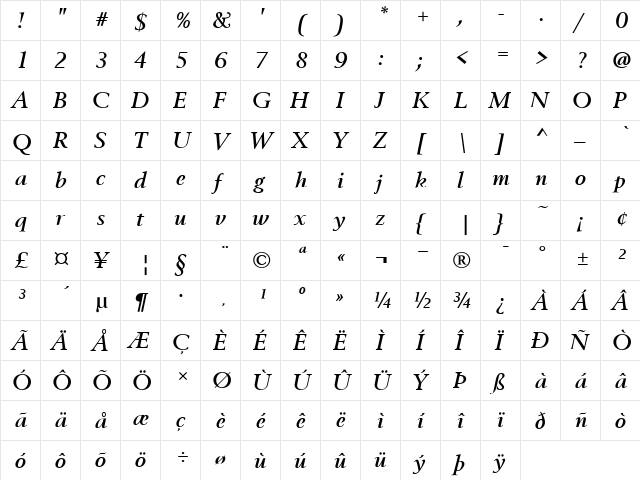
Berling T ItalicBold
Design Context for Berling T Typeface
Berling T is a composed and adaptable typeface that performs quietly and consistently across a wide range of design contexts. Its italic angle brings a sense of urgency and motion to the letterforms. The heavy weight commands attention and anchors typographic hierarchies.